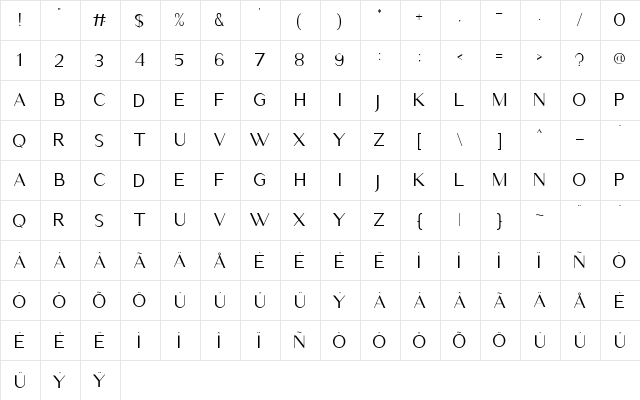
Germany Sans Regular
Design Context for Germany Sans Typeface
Germany Sans is a composed and adaptable typeface that performs quietly and consistently across a wide range of design contexts.